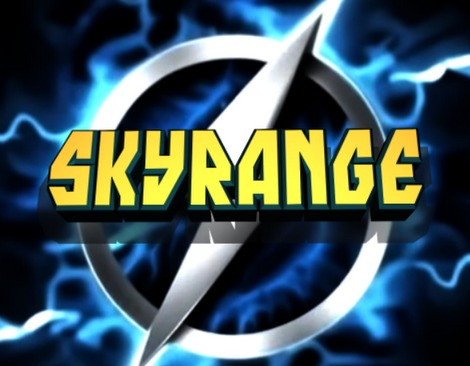
skyrange Font is a bold, high-impact display font designed to command attention. With its strong geometric structure, sharp angles, and dynamic letterforms, Skyrange delivers a powerful futuristic and action-driven aesthetic. The thick strokes and solid construction make it perfect for headlines, gaming titles, posters, logos, and branding that needs to stand out.
Inspired by sci-fi themes and high-energy visuals, Skyrange combines modern design with a slightly aggressive edge, creating a sense of movement and strength. Its clean lines ensure excellent readability even at large sizes, while its distinctive style gives any project a striking, memorable look.